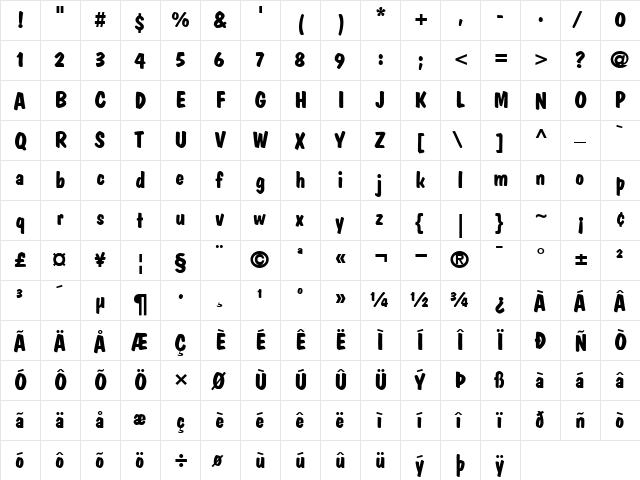
DomCasual Bold Font Preview
DomCasual Bold
Design Context for DomCasual Typeface
DomCasual takes a measured approach to typography — its balanced proportions and neutral character make it a reliable workhorse for both digital and print work. Its bold stroke weight gives it real presence on the page.
Pro Tip: Use DomCasual in both headline and body roles to test its range before committing to a single application.